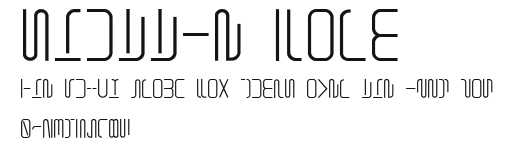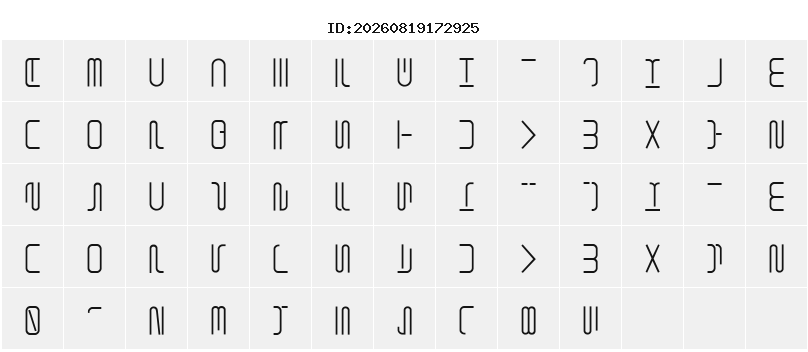
Shuttle Form Preview
• Font Name: Shuttle Form
About Shuttle Form.ttf
Shuttle Form.ttf is a modern, elegant sans-serif font designed for ultimate readability and visual harmony. Perfect for branding, headlines, web design, and print materials.